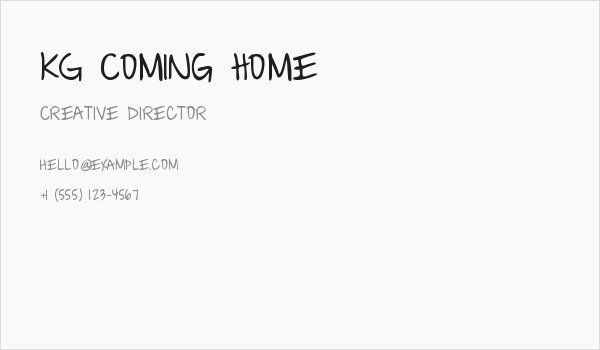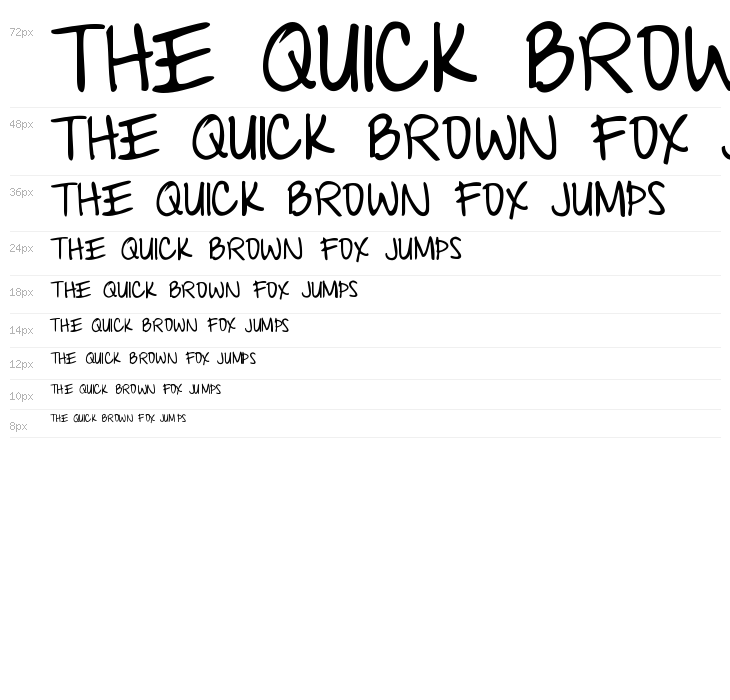
KG Coming Home Font
KG Coming Home Description
This font features a playful and casual handwritten style, characterized by its smooth, flowing lines and slightly irregular shapes. The letters are bold and have a consistent stroke width, giving them a uniform appearance while maintaining a lively and informal feel. The uppercase and lowercase letters are well-proportioned, with a slight slant that adds to the dynamic nature of the font. The numerals and special characters are designed to match the overall aesthetic, ensuring a cohesive look across all text. This font is ideal for projects that require a personal touch or a friendly, approachable vibe.
| Use Case | Headlines, Logos, Informal text |
| Proposed Projects | Ideal for greeting cards, children's books, casual branding, and social media graphics. |